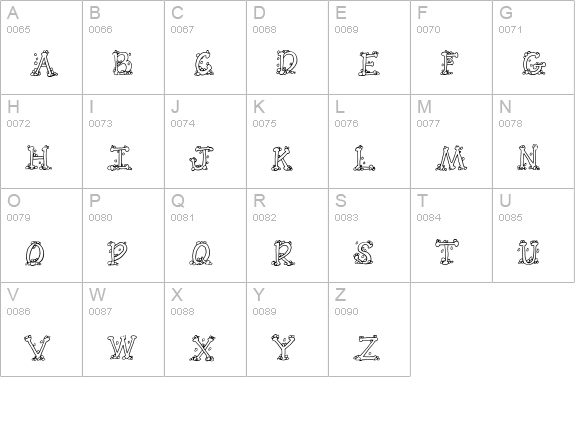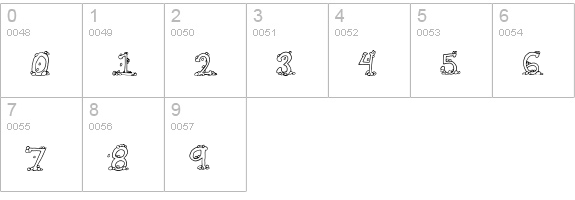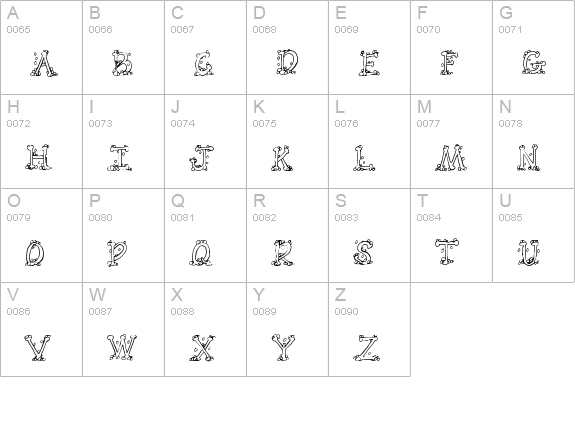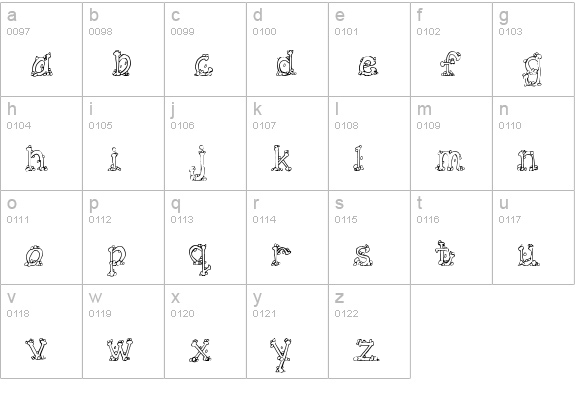
CK Foamy Font Details
CK Foamy font is a playful and whimsical typeface that exudes a sense of fun and creativity. With its rounded edges and bubbly appearance, this font is perfect for adding a touch of charm to your designs. Whether you're working on a children's book, a poster for a carnival, or a greeting card for a friend, CK Foamy font will bring a lighthearted feel to your project. Best of all, CK Foamy font is available for free download at FontsMarket.com. You can easily add this delightful font to your collection without any cost, making it a valuable resource for all your design needs. Don't miss out on the opportunity to enhance your projects with the whimsical charm of CK Foamy font today!